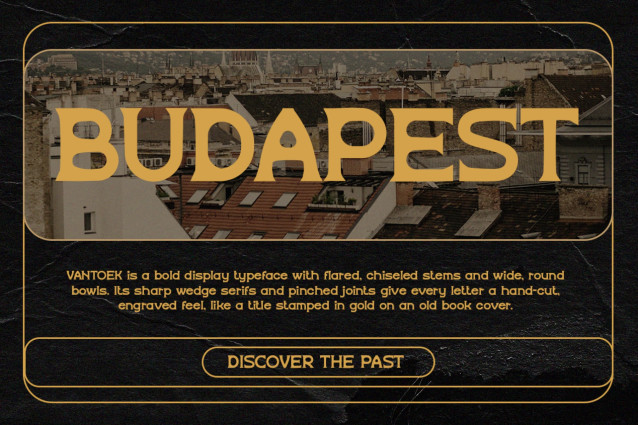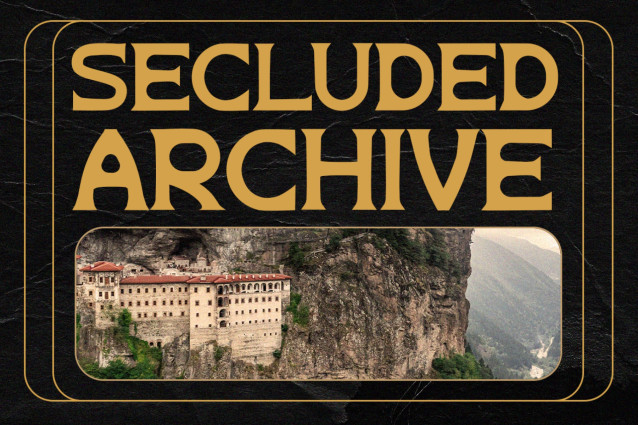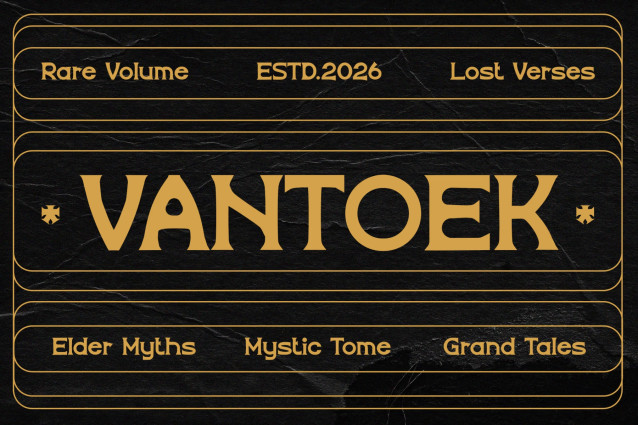
Retro Font Vantoek brings a bold vintage archive vibe with a cool old-world twist. First, its chunky letterforms and rounded details create a strong, distinctive look. Meanwhile, the decorative lines add an authentic archival feel. Plus, its bold shapes keep headlines clear and impactful. As a result, VANTOEK is perfect for designs that need character, nostalgia, and serious visual punch.
Inspired by ancient texts, sacred writings, old libraries, historical archives, and classic European typography, VANTOEK delivers a rich heritage mood. Moreover, its bold display style makes headlines instantly noticeable. In addition, the vintage details add depth without overwhelming the layout. At the same time, its versatile structure works across both classic and modern compositions. Therefore, you can use VANTOEK for posters, book covers, editorial layouts, packaging, labels, logos, museum graphics, travel designs, and retro branding.